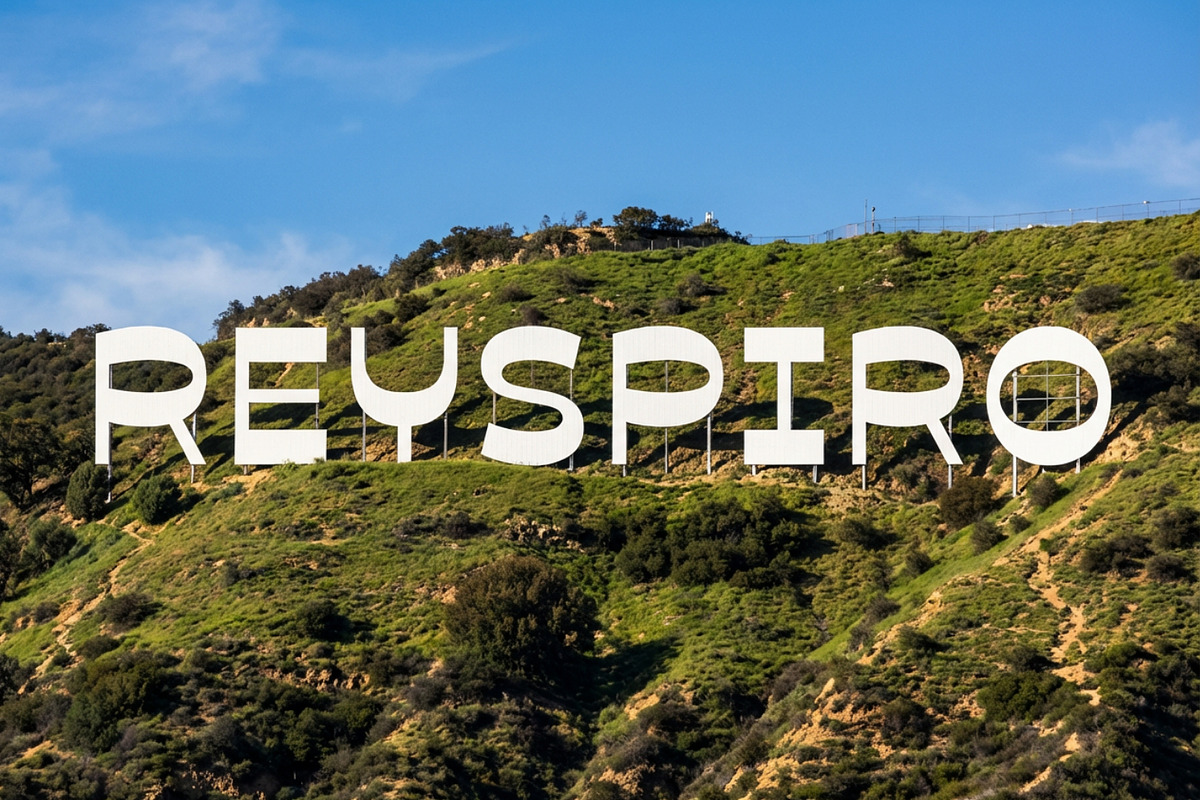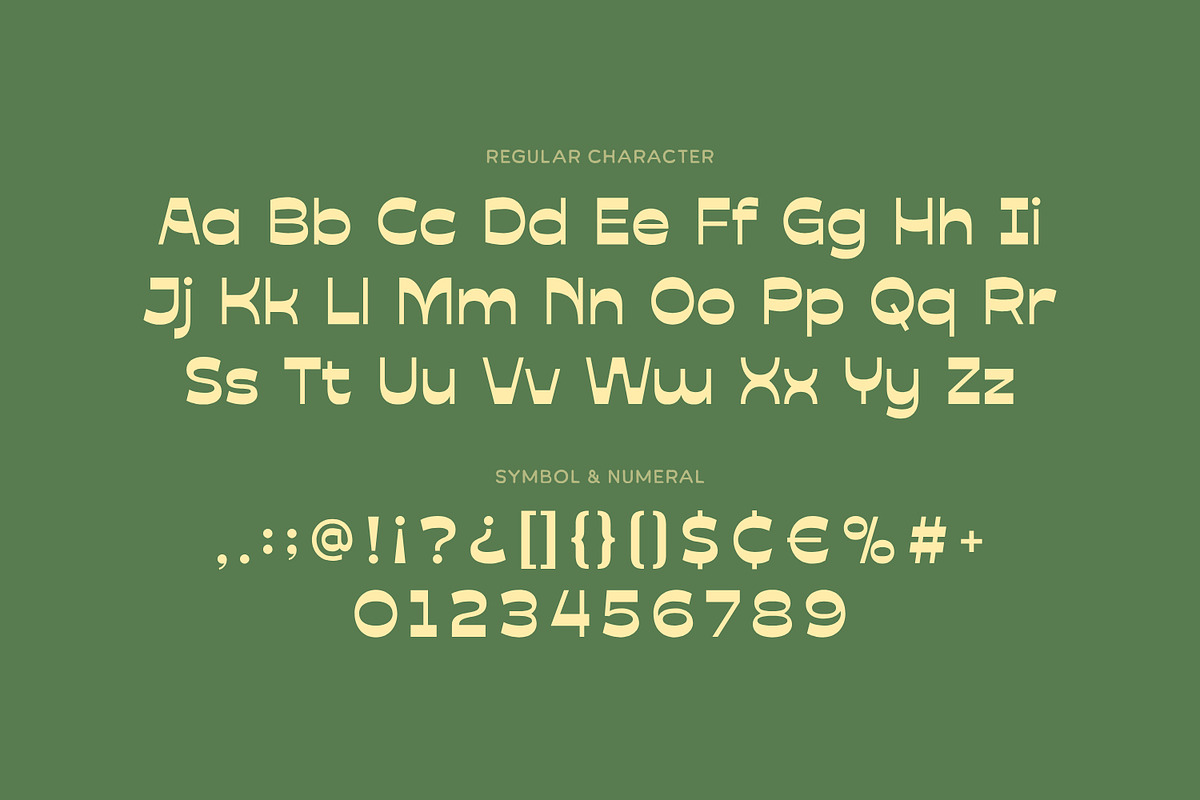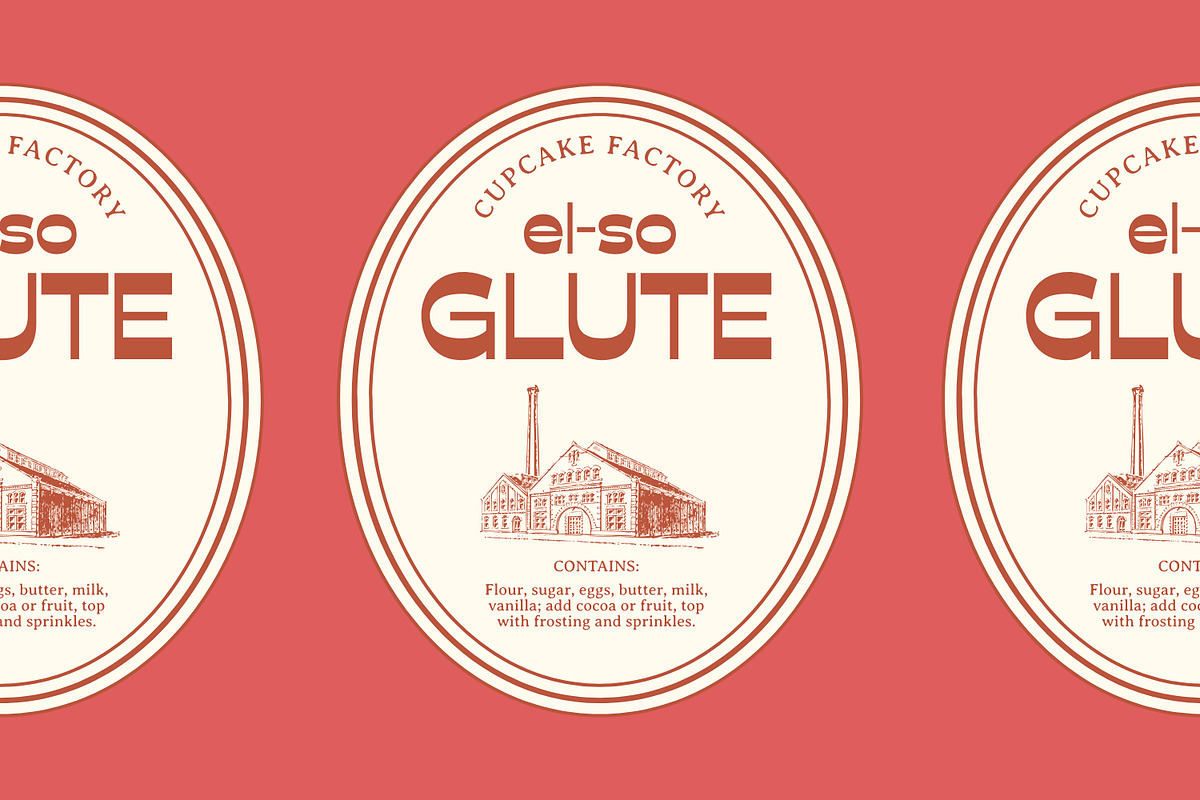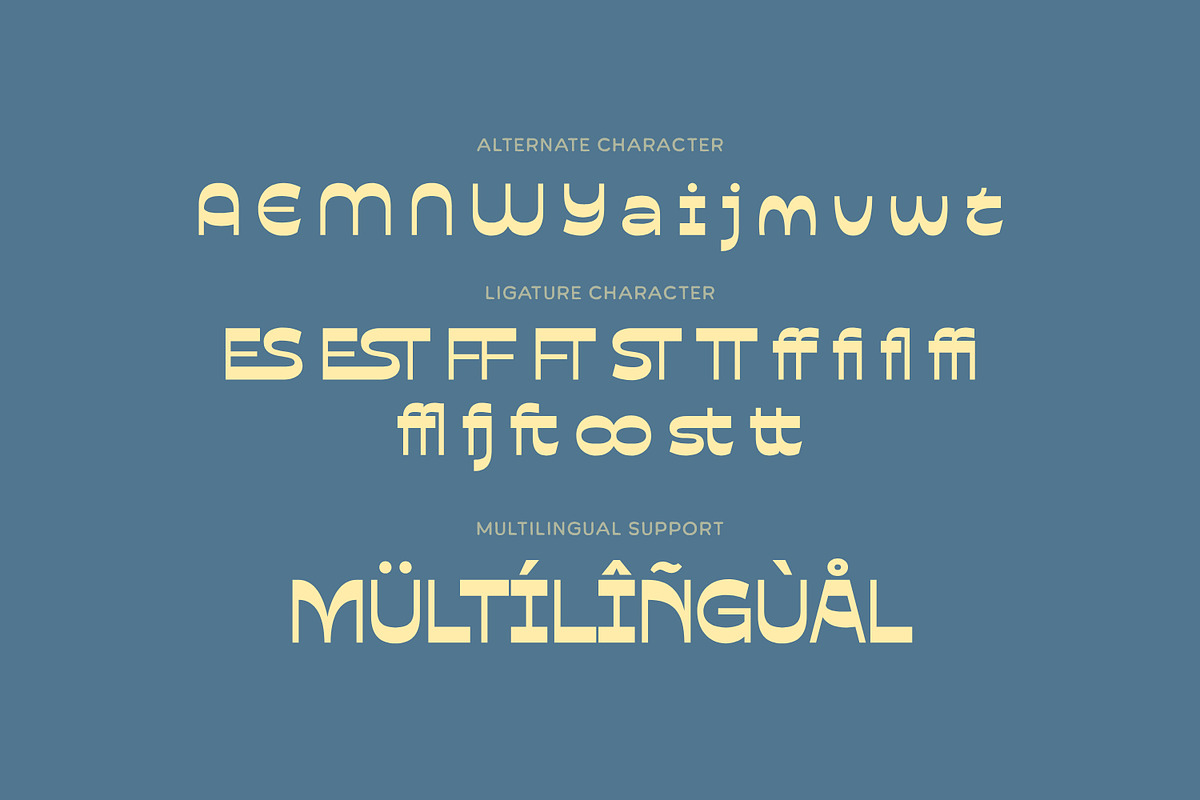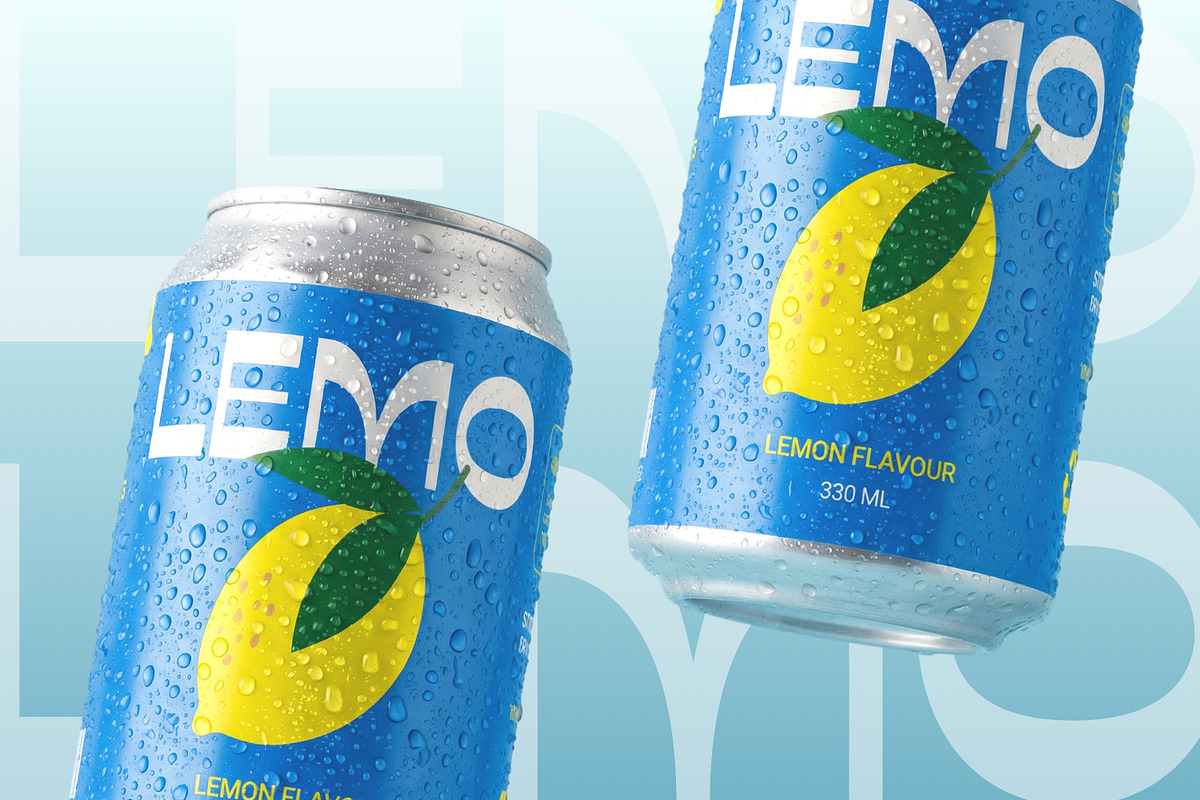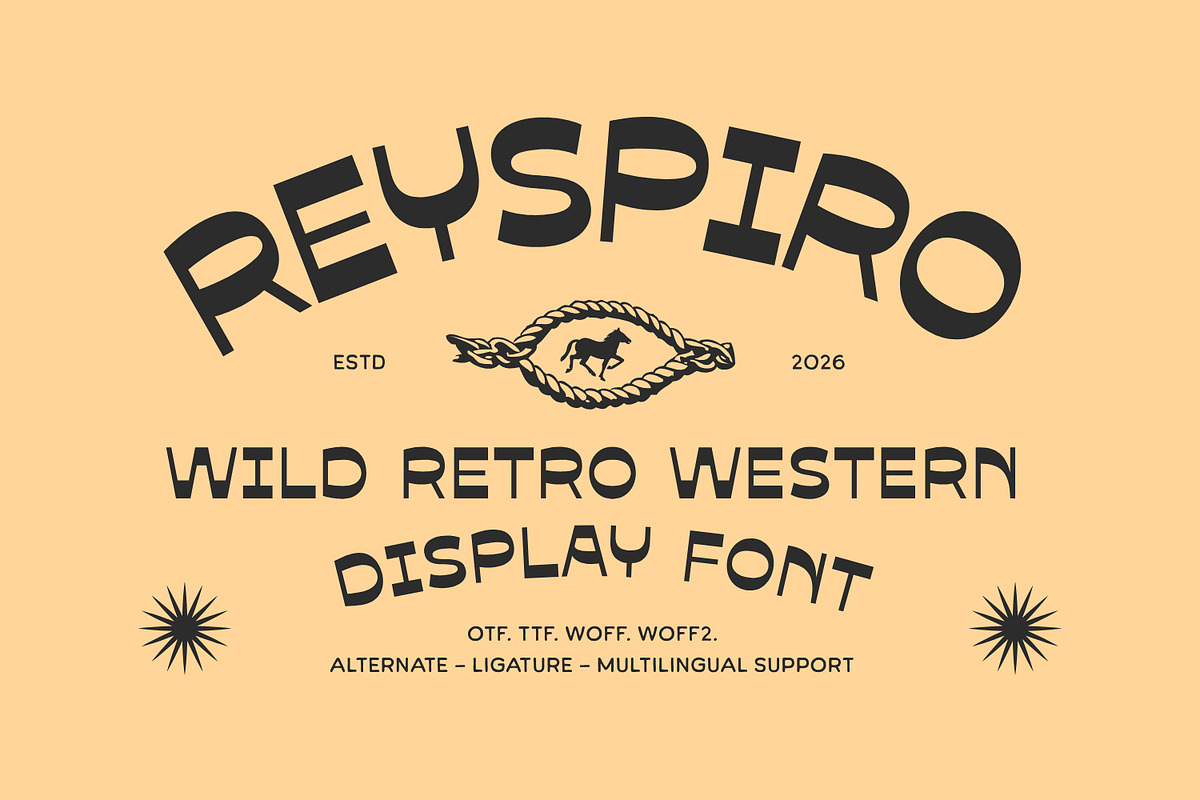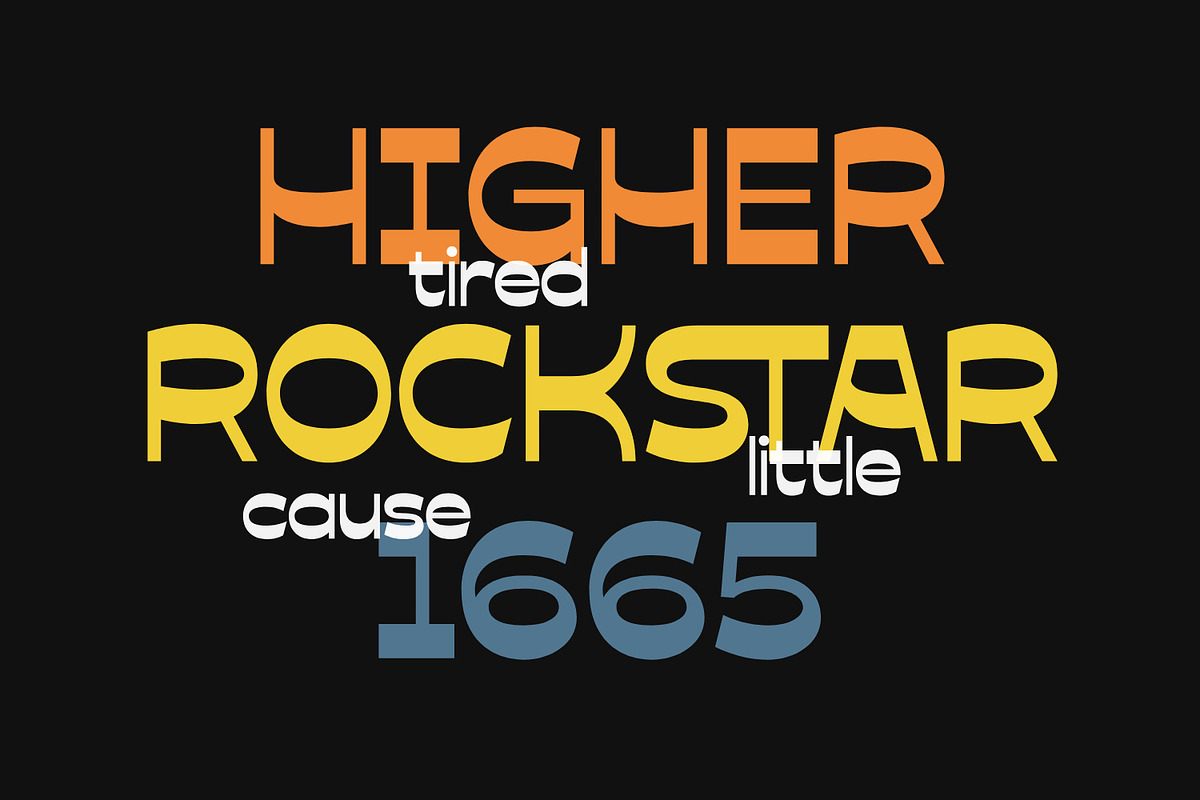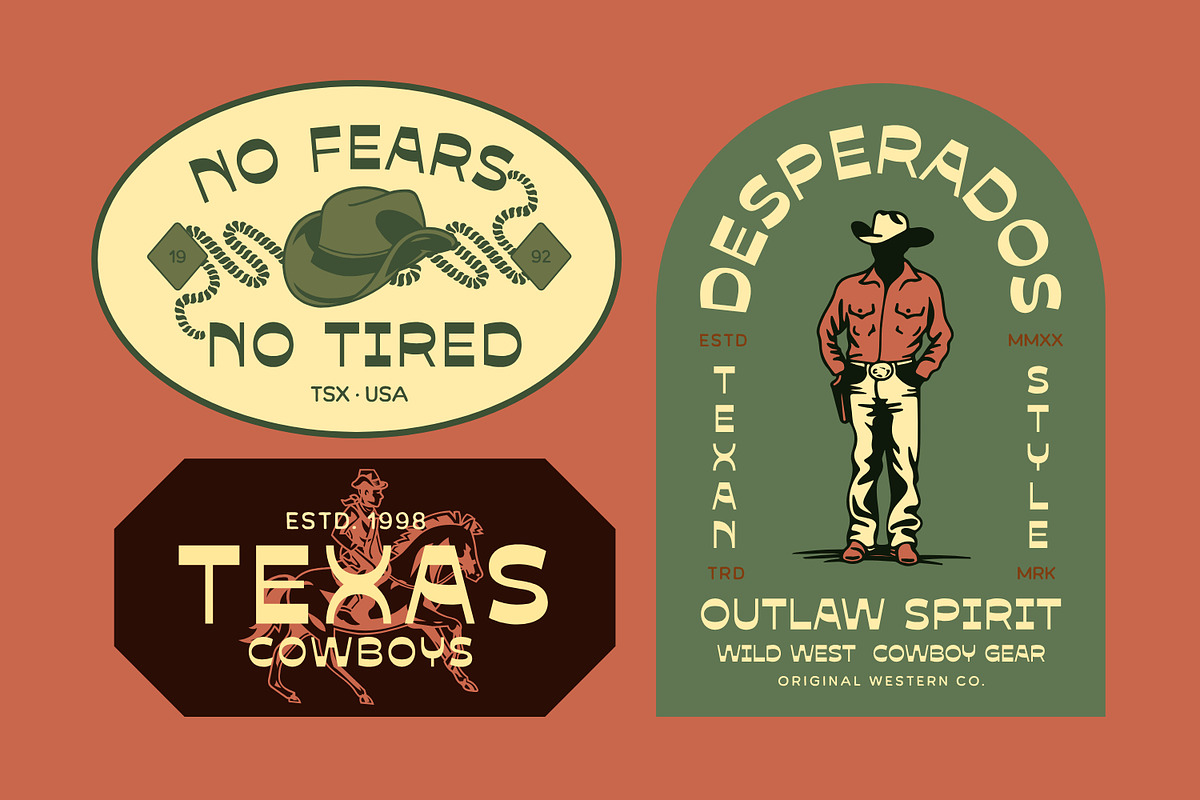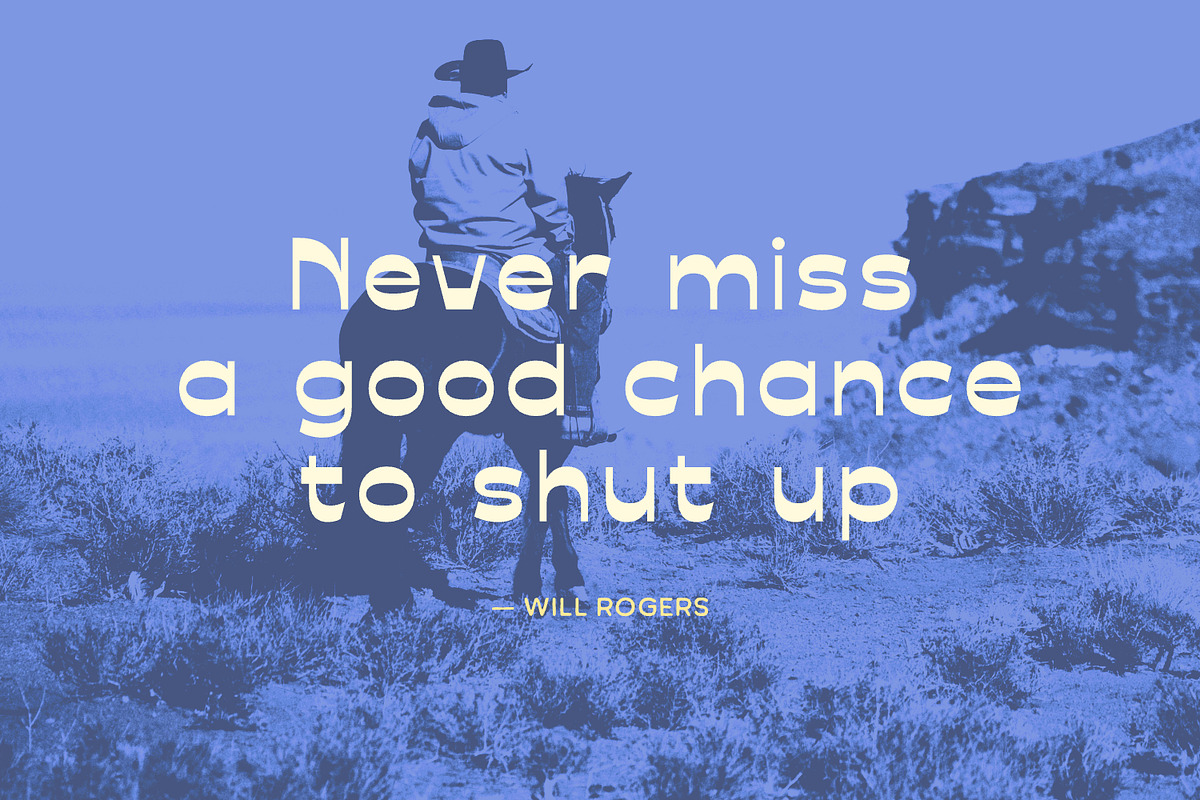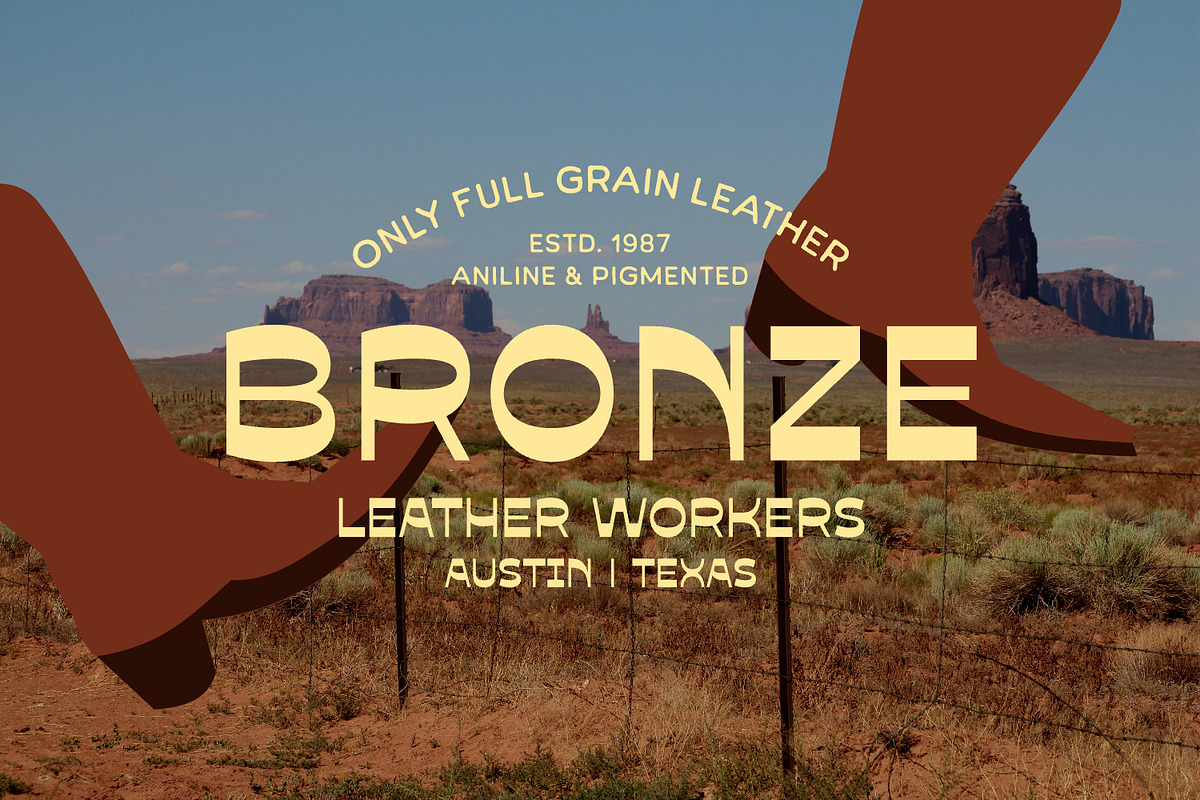
Reyspiro - Western Bold
Reyspiro is a bold wild retro western display font inspired by vintage cowboy typography and classic western culture. Perfect for logos, posters, headlines, packaging, branding, social media graphics, and retro design projects. With ligatures, alternates, symbols, numerals, and multilingual support, Reyspiro brings a strong vintage western character to your designs.